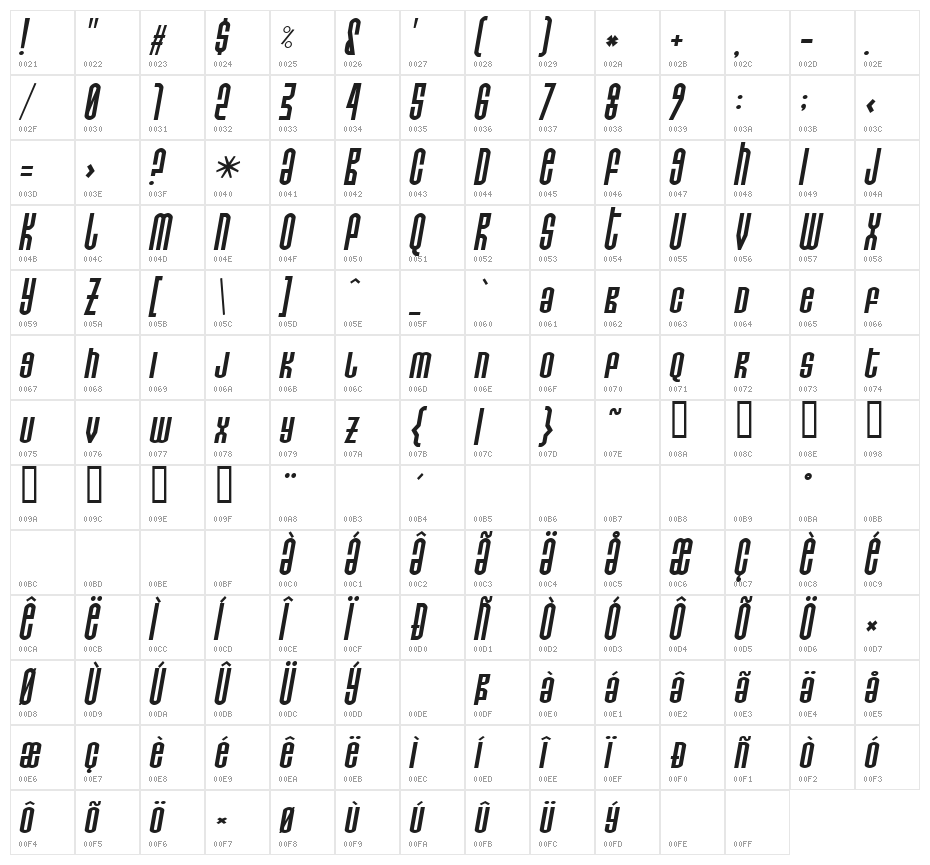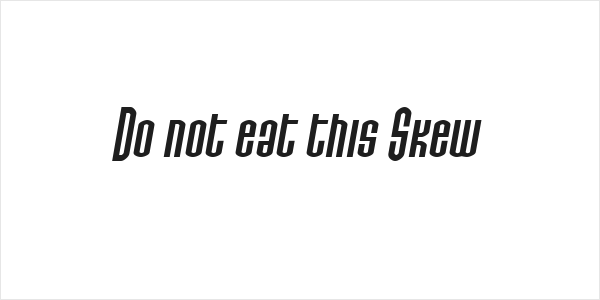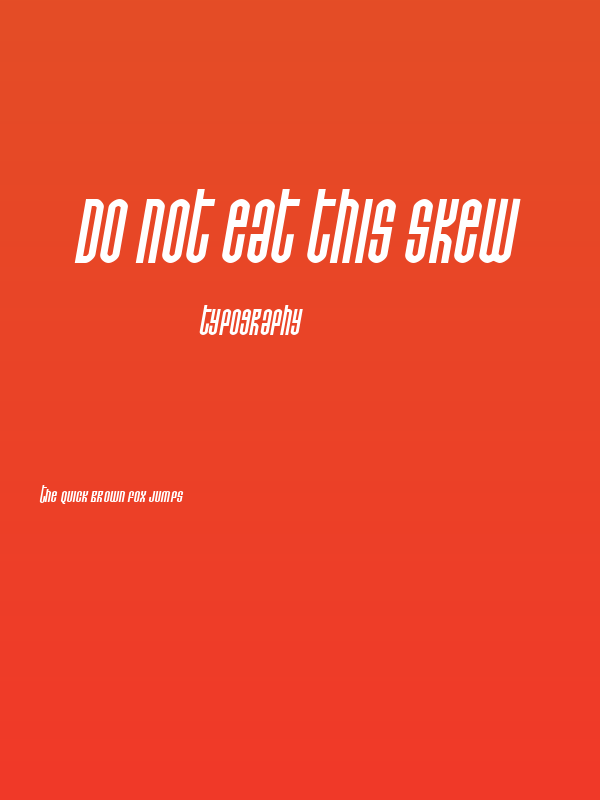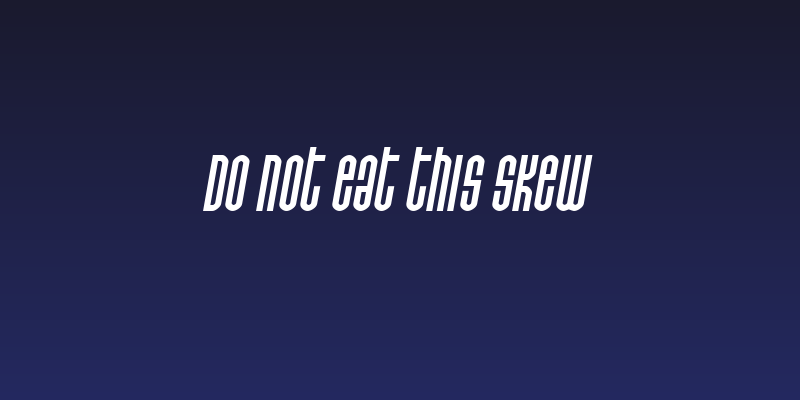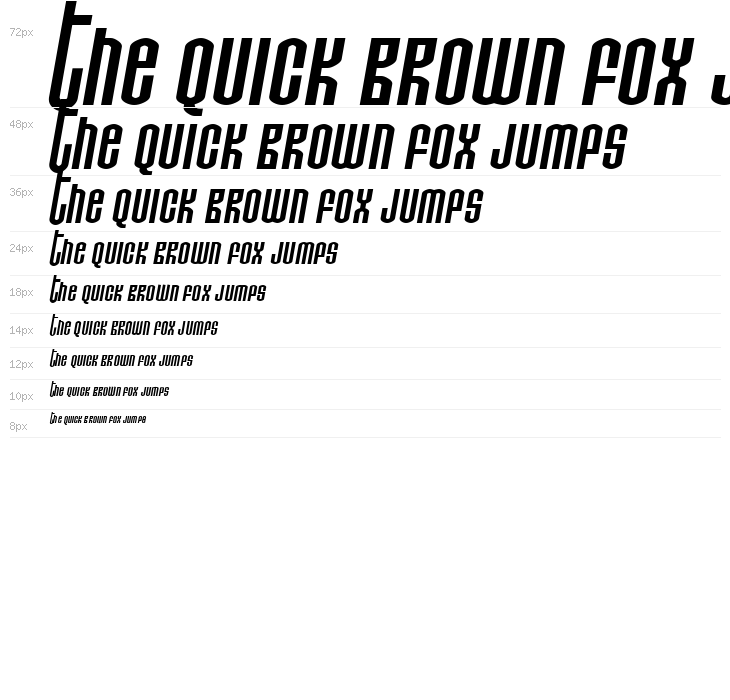
Do not eat this Skew Font
Do not eat this Skew Description
This font features a bold and dynamic style with a distinct slant, giving it a sense of motion and energy. The characters are elongated and narrow, with sharp angles and a modern aesthetic. The uppercase and lowercase letters maintain a consistent height, contributing to a uniform appearance. The numerals and special characters are designed to match the overall style, ensuring cohesion across different uses. The font's unique design makes it suitable for projects that require a strong visual impact.
| Proposed Projects | Ideal for sports branding, dynamic posters, modern advertising, and edgy logo designs. |